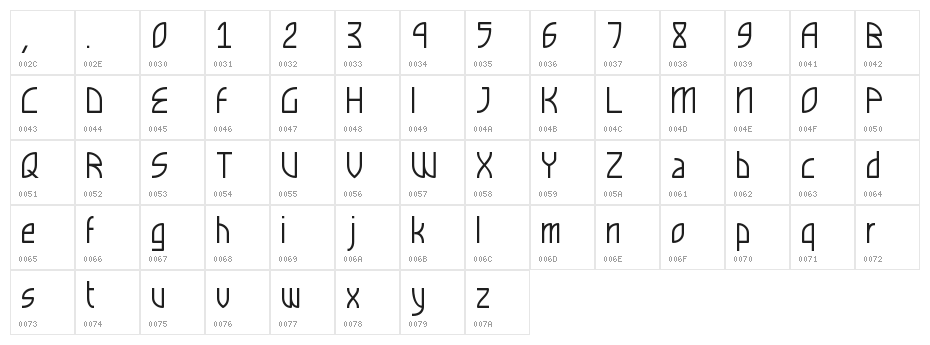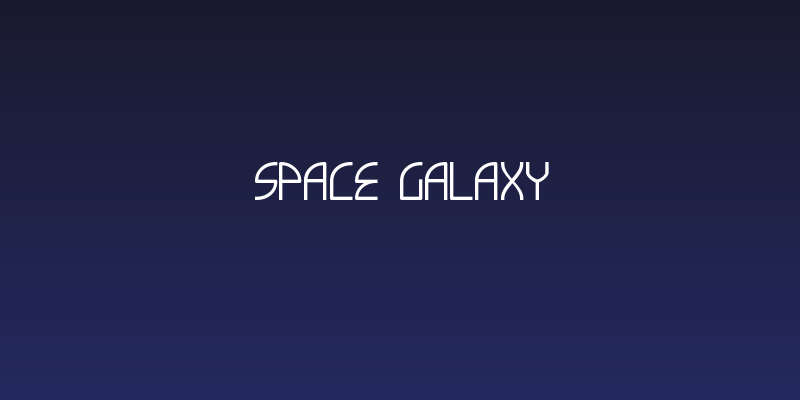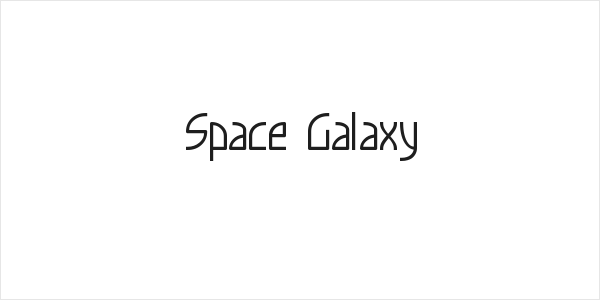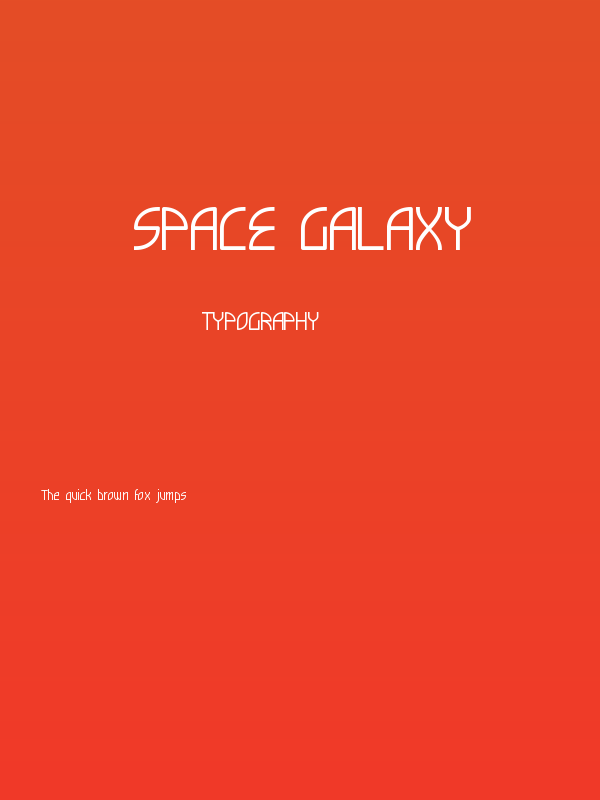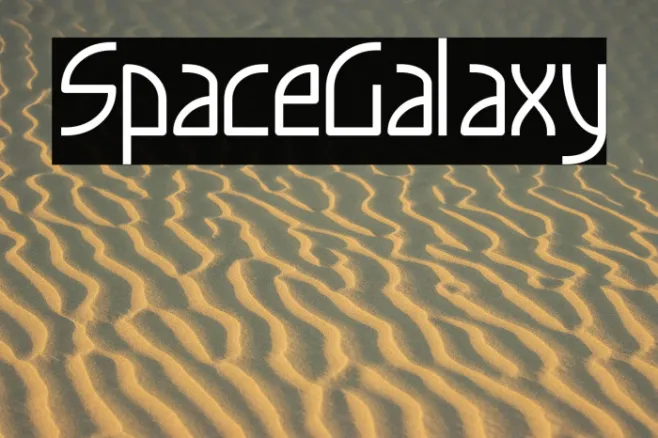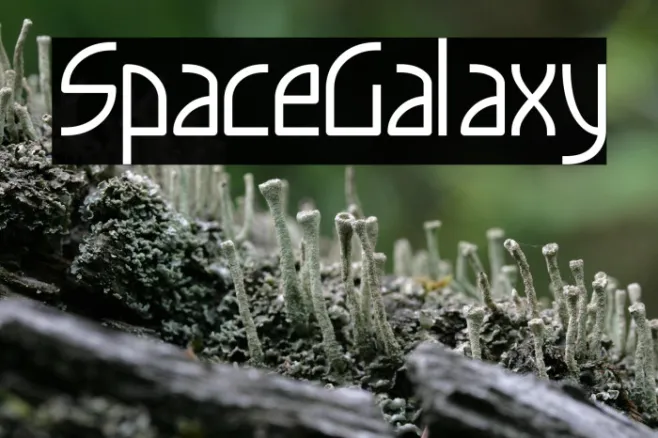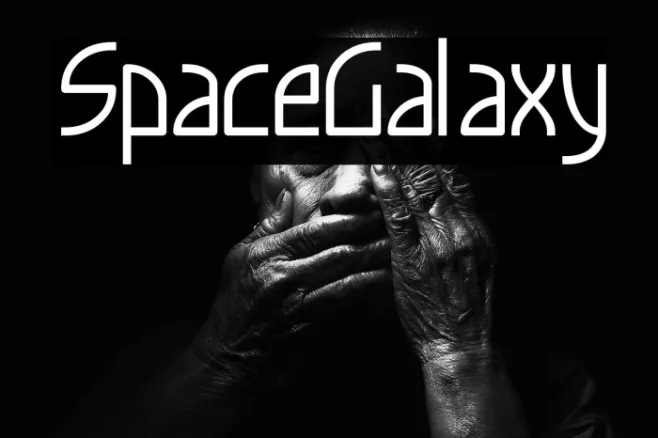
Space_Galaxy Font
Space_Galaxy Description
This font features a futuristic and geometric design, characterized by its clean lines and rounded edges. The uppercase letters are bold and structured, with a consistent height that creates a uniform appearance. The lowercase letters maintain the geometric theme, offering a modern twist with their slightly condensed form. Numbers are distinct and easy to read, following the same design principles as the letters. The special characters are crafted to match the overall aesthetic, ensuring a cohesive look across all text elements. This font's style is ideal for projects that require a modern and sleek appearance.